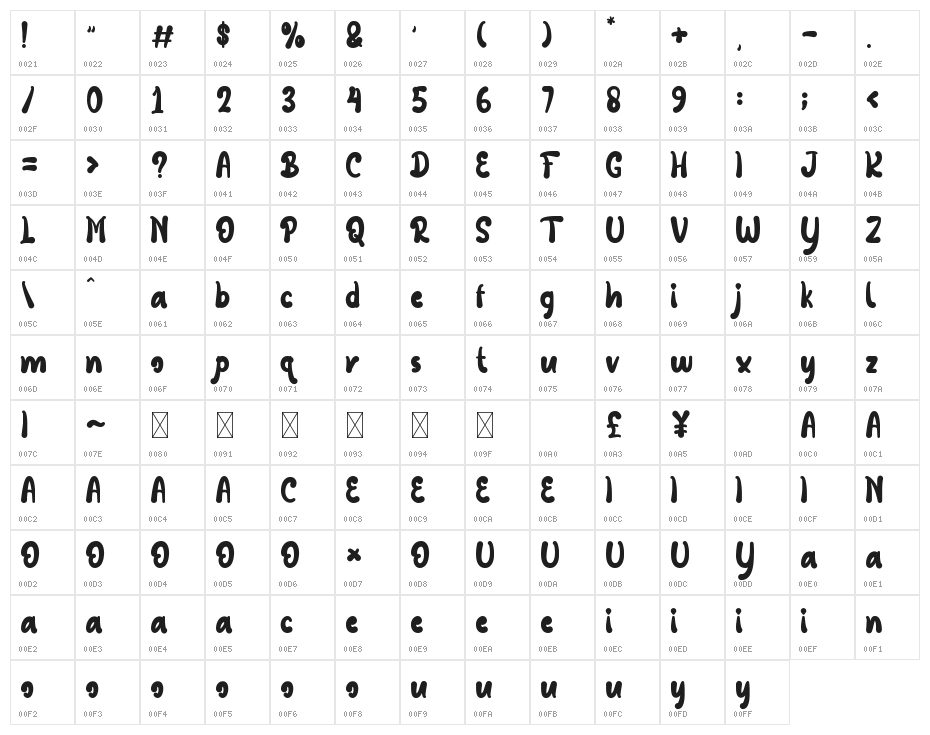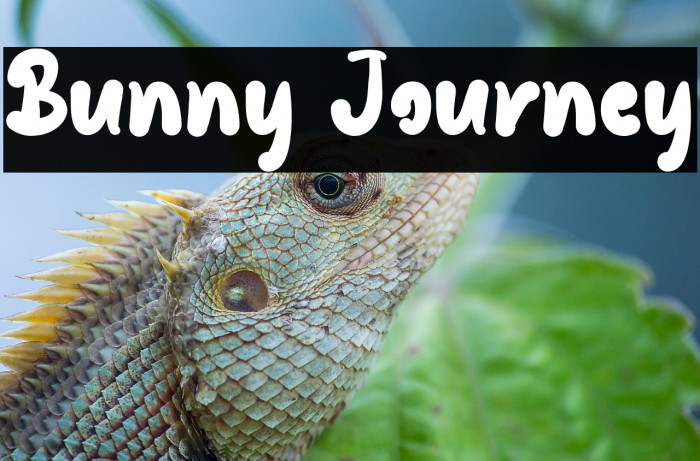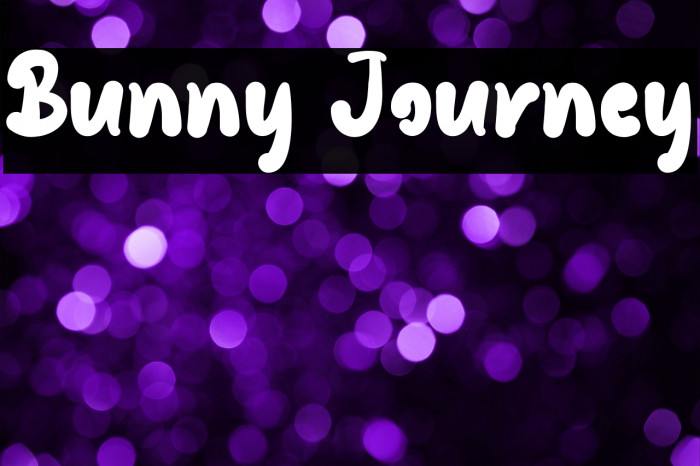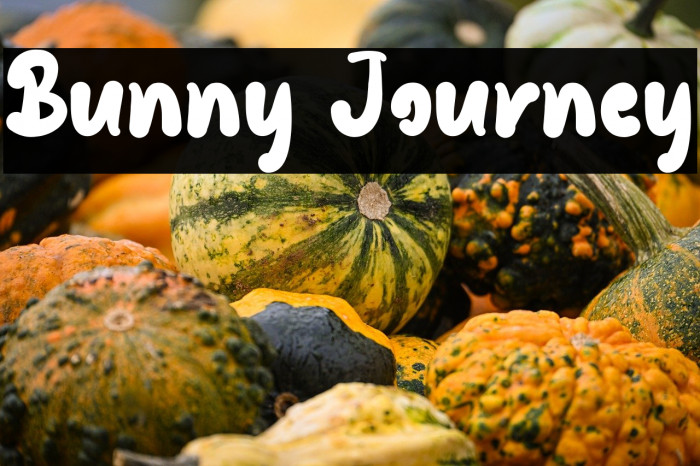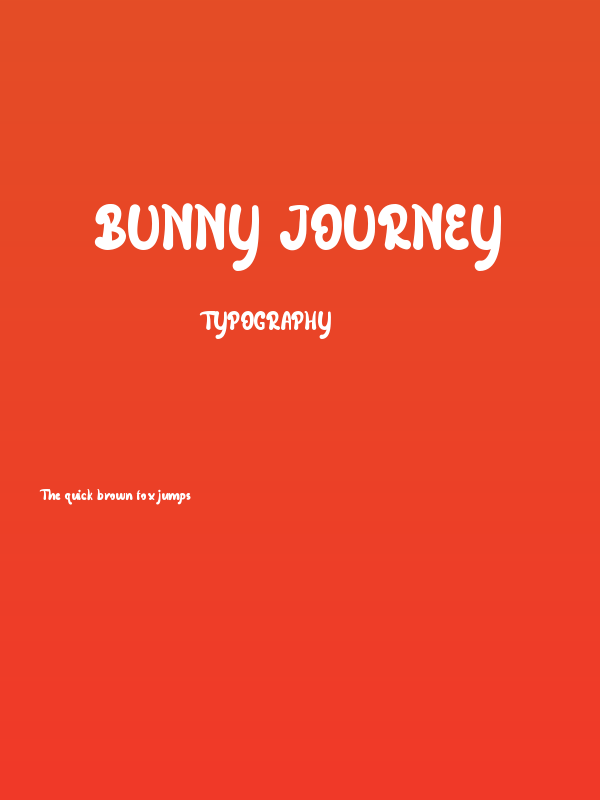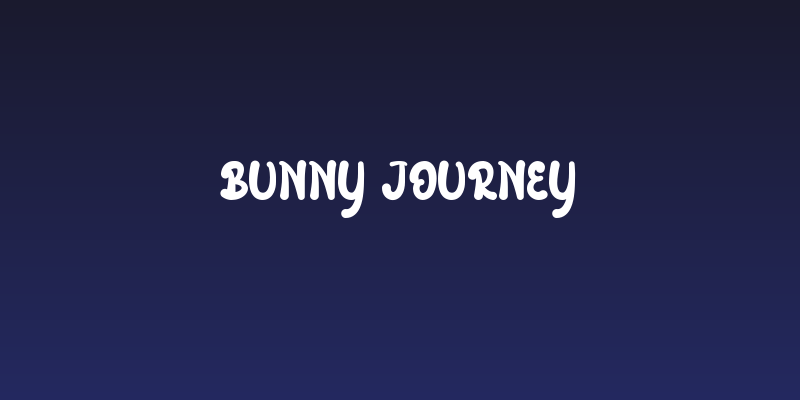
Bunny Journey Font
Bunny Journey Description
This playful and bold font features rounded, thick strokes that give it a friendly and approachable appearance. The characters are slightly irregular, adding a whimsical touch that makes it stand out. Its boldness ensures high visibility, making it suitable for eye-catching designs. The font maintains a consistent weight throughout, with a slight variation in stroke width that adds to its charm. The overall style is casual and fun, making it perfect for projects that require a lively and energetic feel.
| Proposed Projects | Ideal for children's books, playful branding, party invitations, and casual posters. |